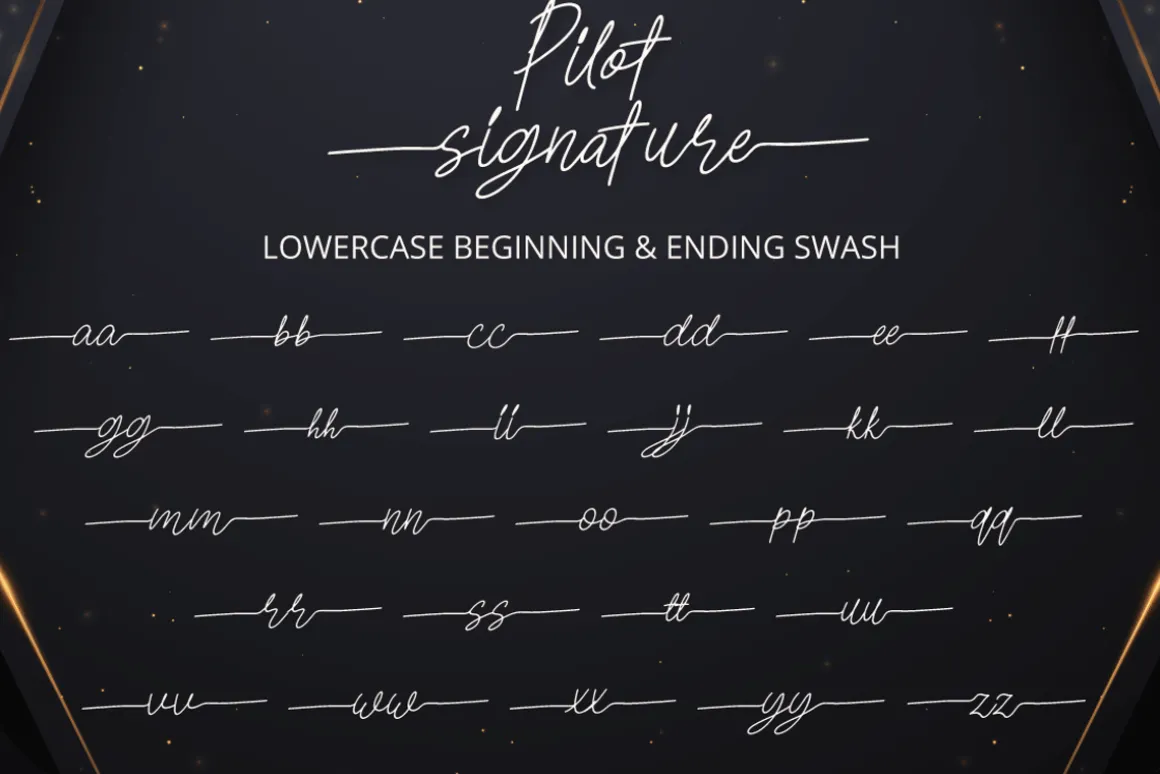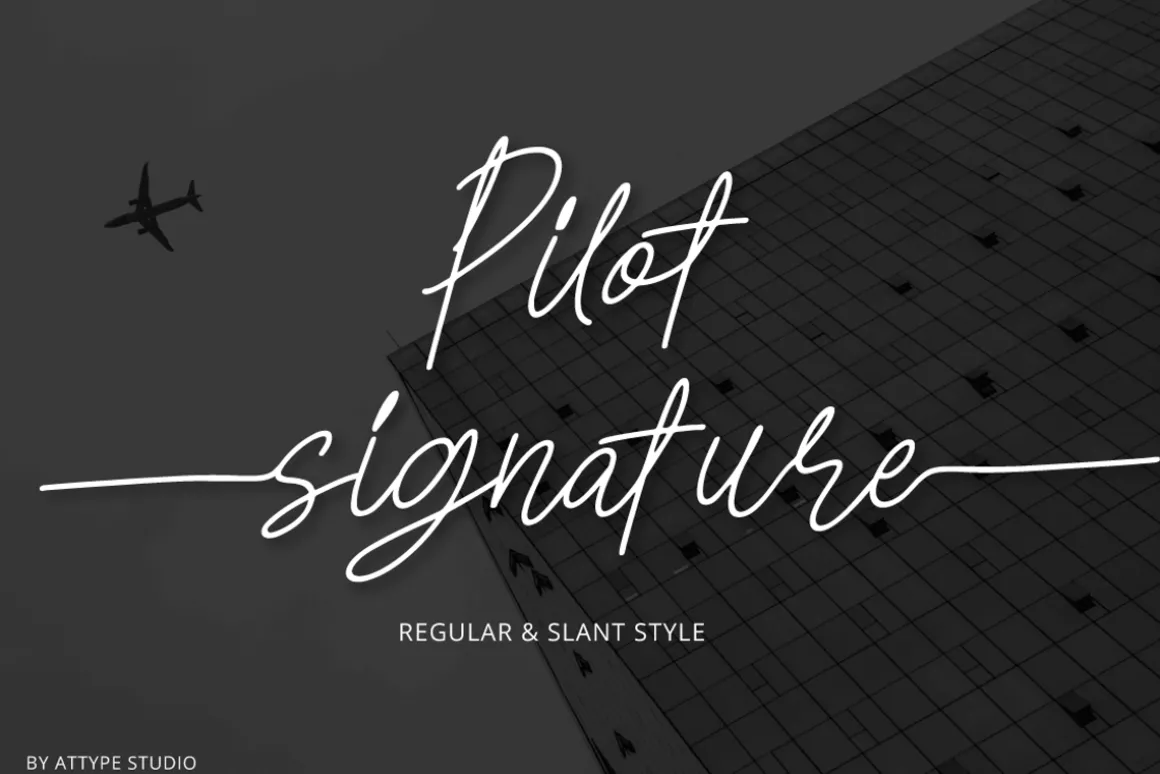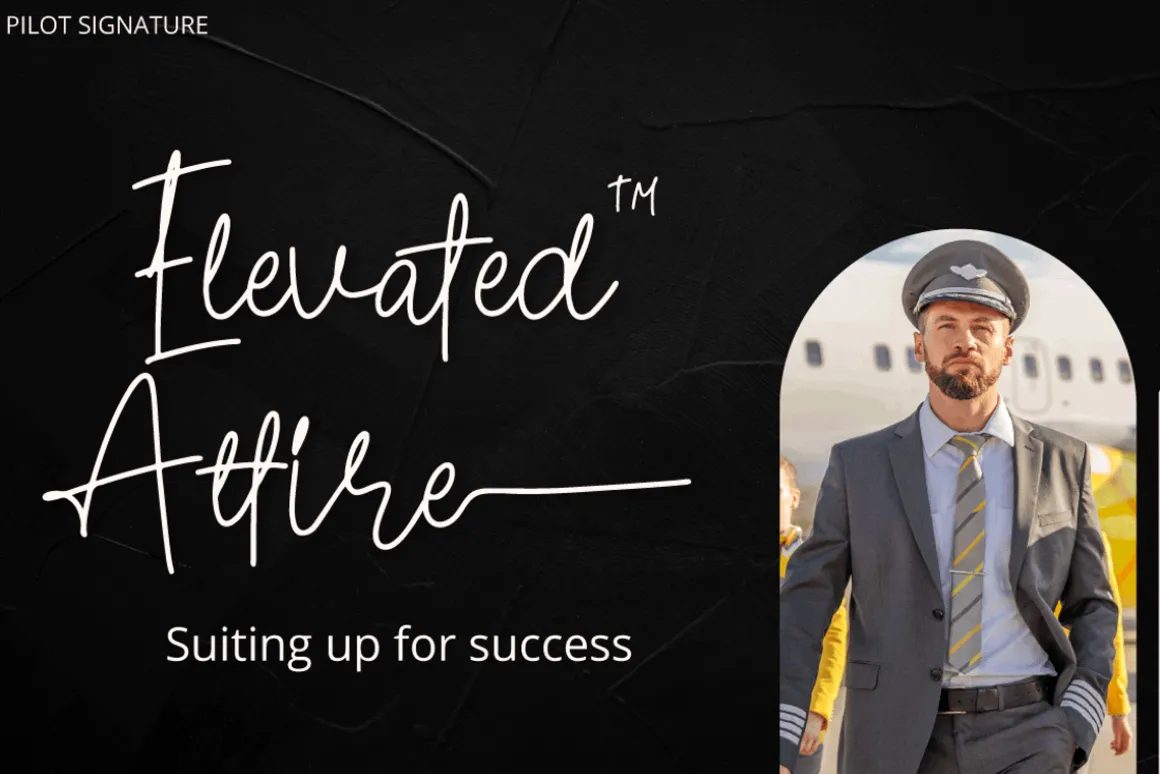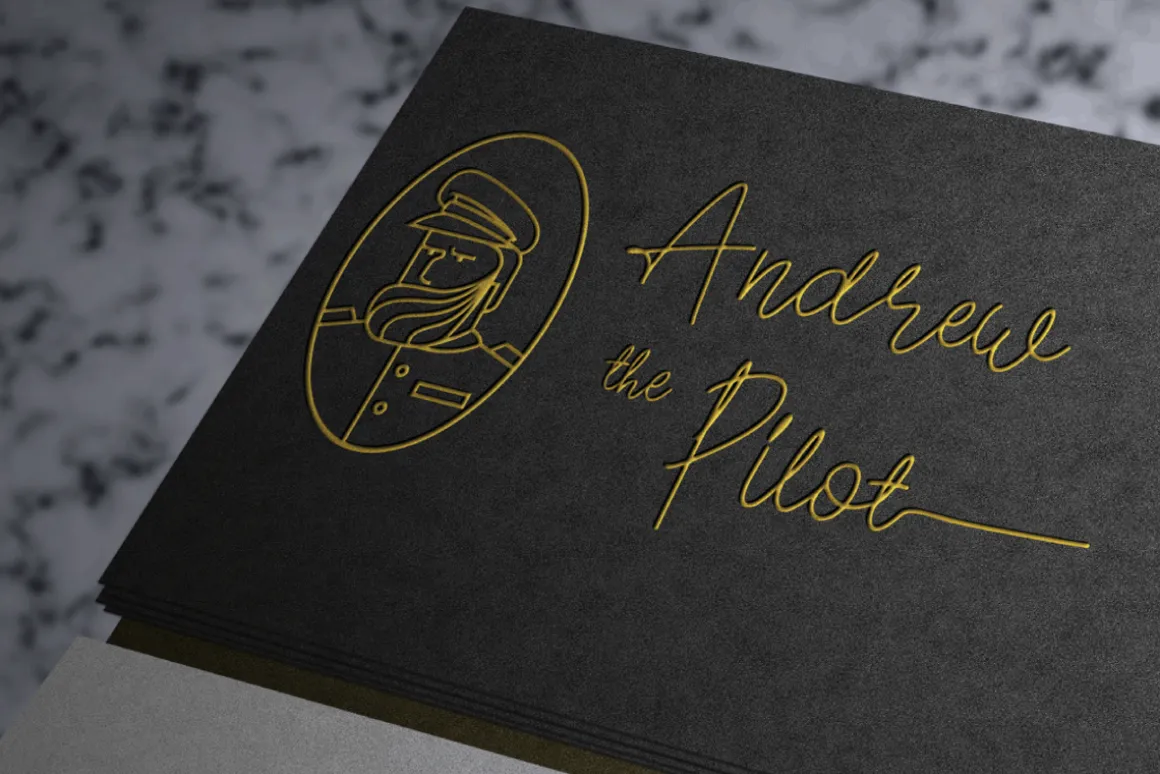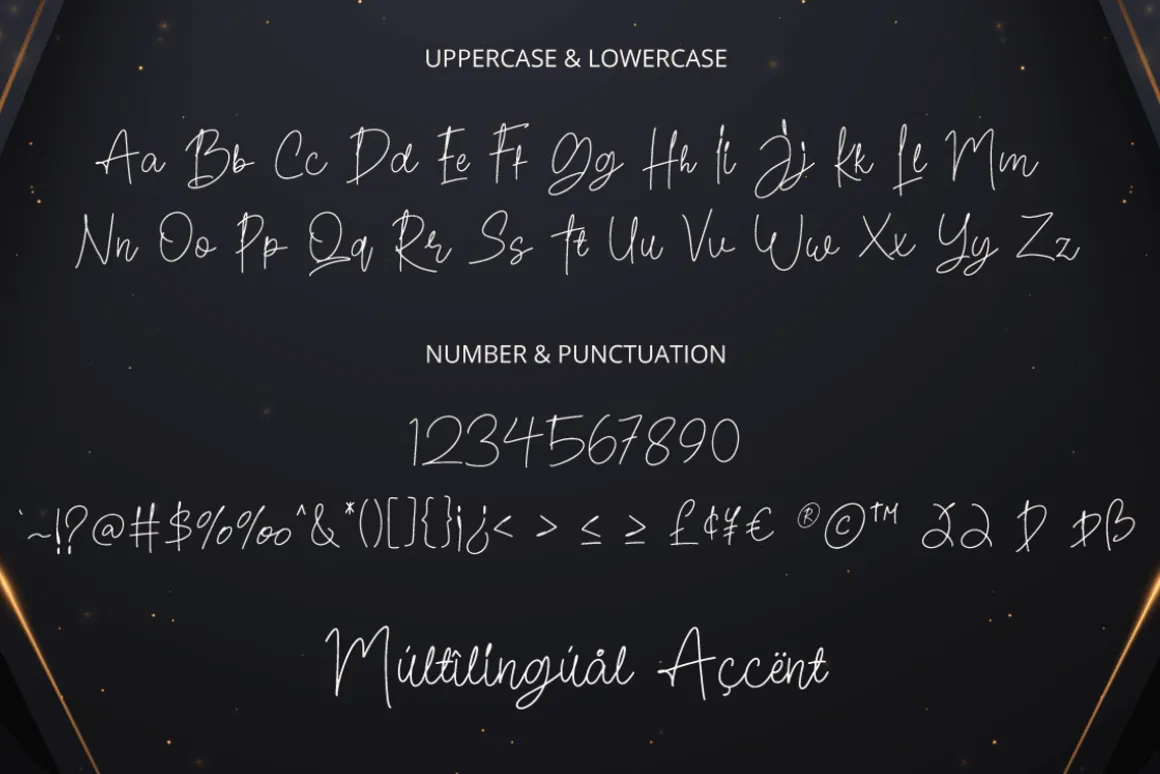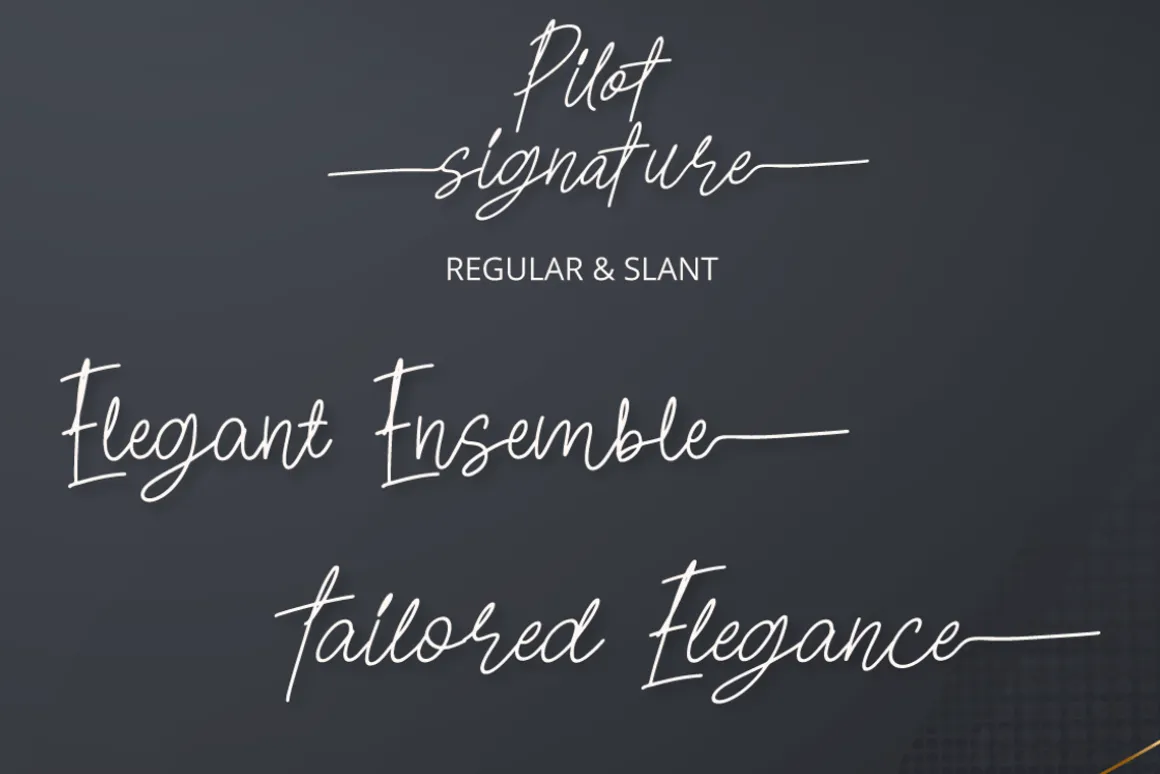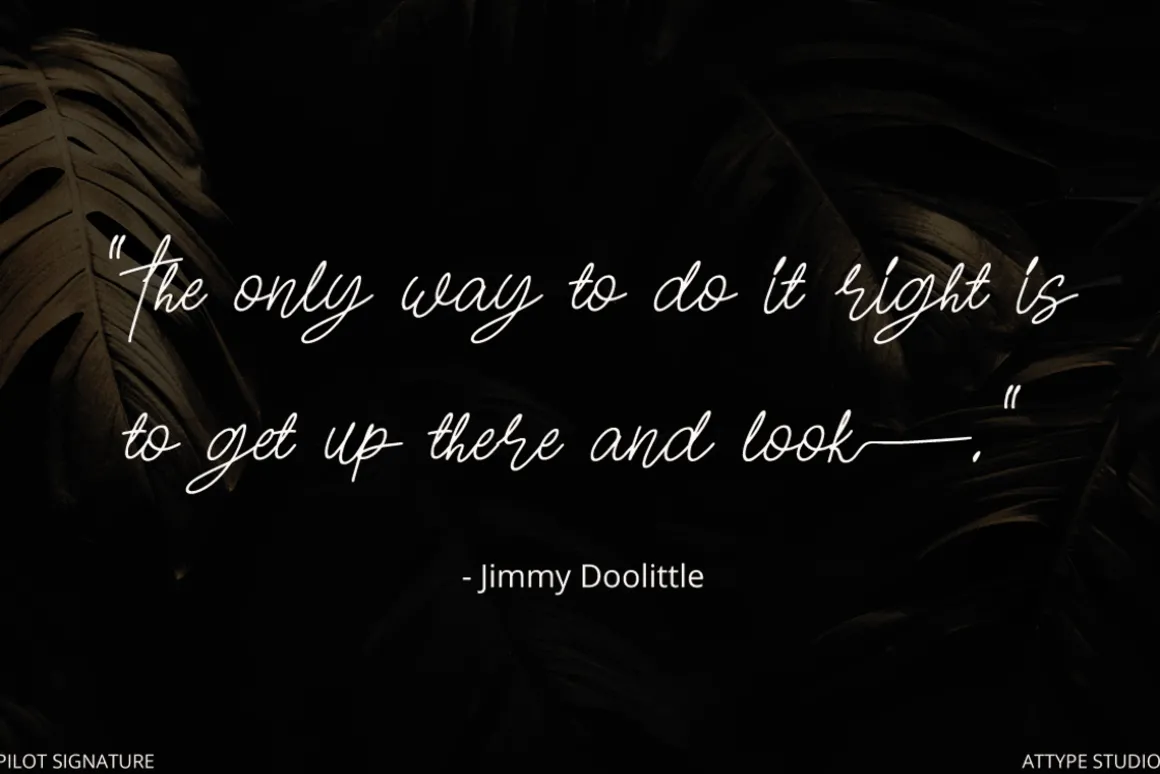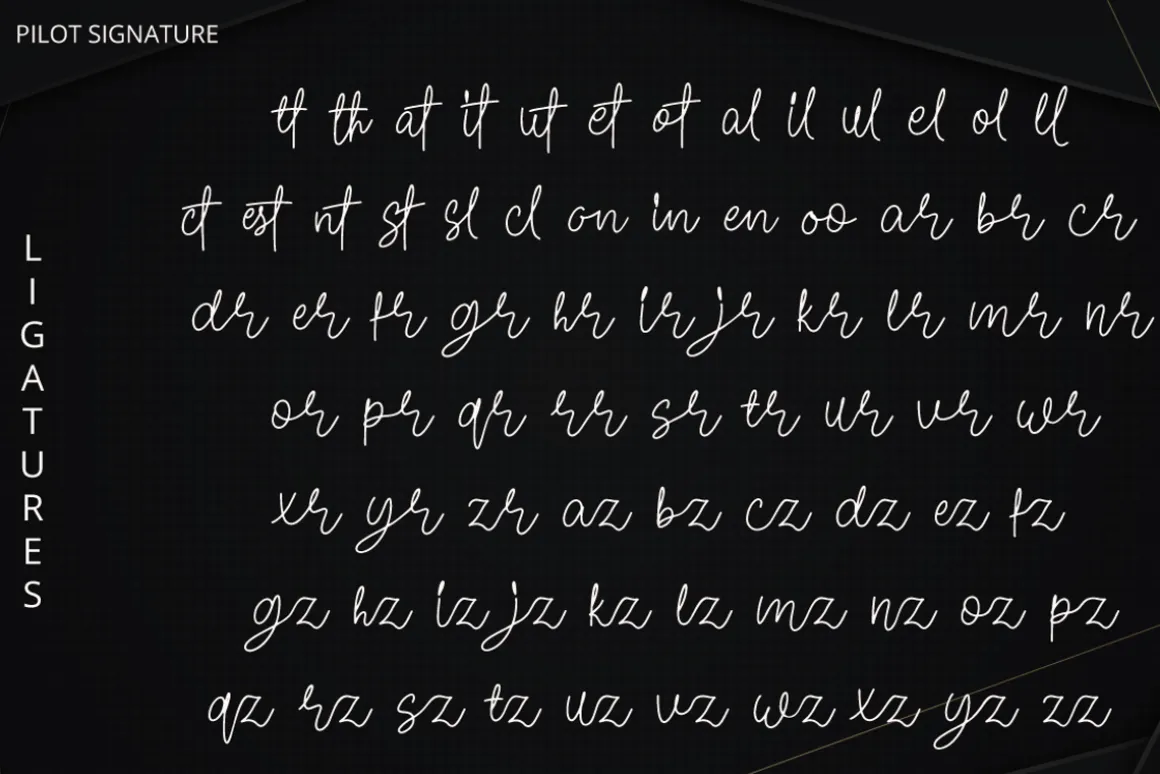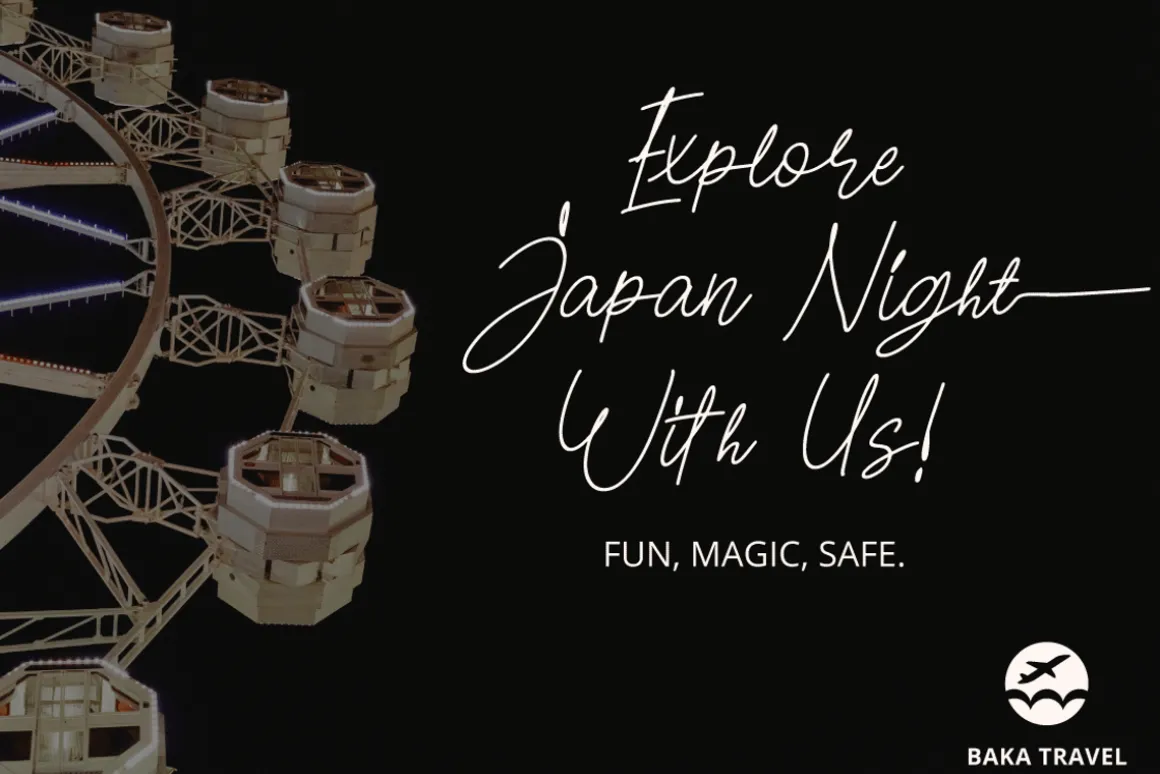
Introducing Pilot Signature – a stunning signature script font with a plethora of unique ligatures and swashes. With its elegant and flowing letters, this font is perfect for adding a personal touch to your designs.
Pilot Signature also boasts a multilingual character set, allowing for flexibility in use for a global audience. Additionally, the font comes in two styles – regular and slant– giving you even more options to customize your designs.
- Ligatures
- Beginning & Ending Swash
- Multilingual, US Roman, Latin 1 Support